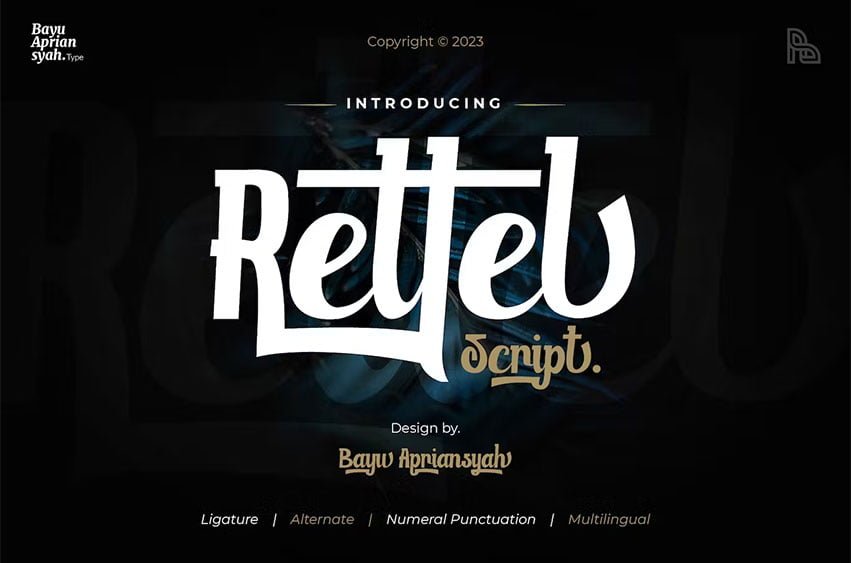
Rettel Font can be used for any variety purpose, such as: Logo, Band Logo, Movie Title, Poster, Coffee shop Logo and Clothing
FEATURES :
- Alternates
- Numbers and punctuation